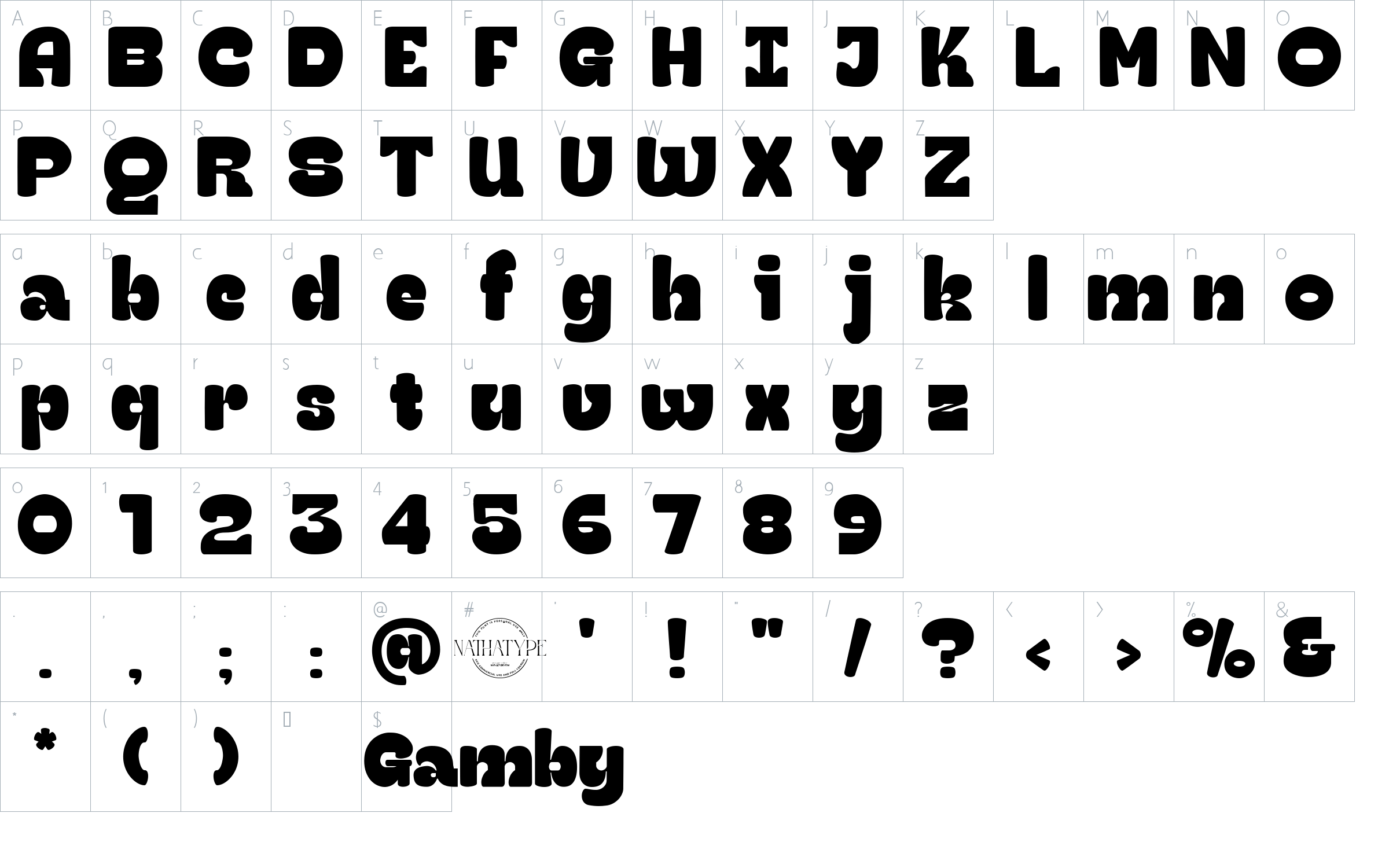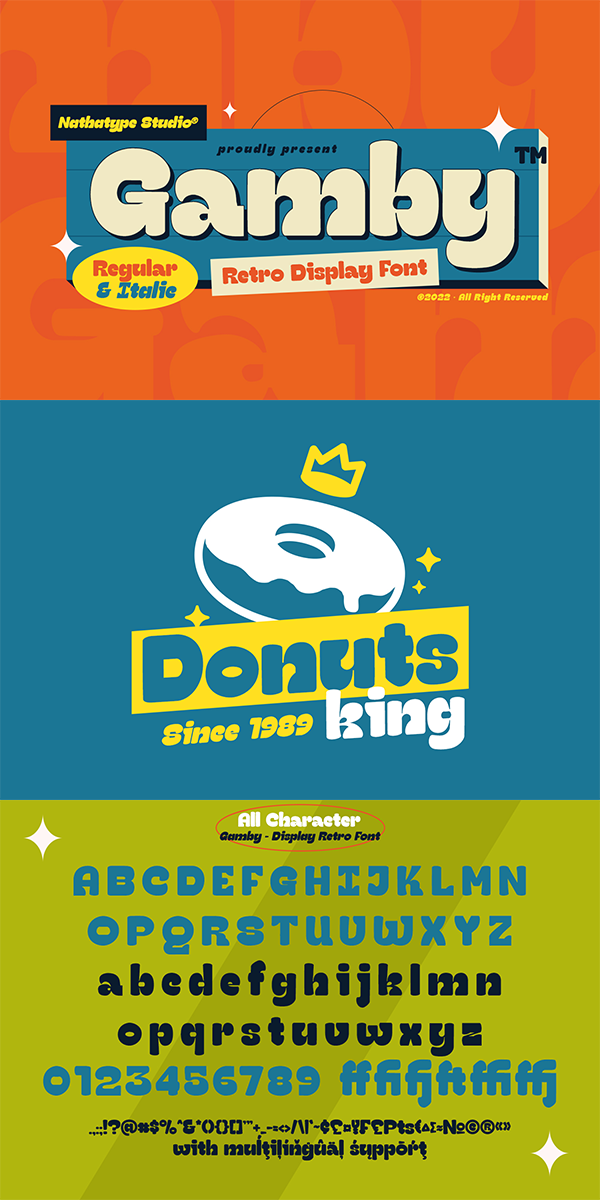
Gamby Font
About Gamby
Gamby is an attractive, vintage, playful display font for your customers. Its main character is the round, thick letters in thin outlines. Gamby provides two versions, regular and italic to use for bigger-sized texts to be legible.